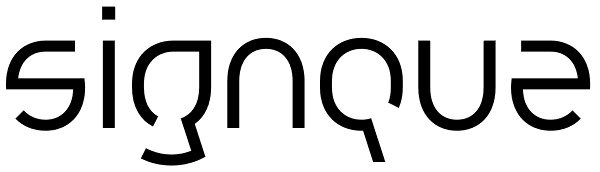
signque
signque is an elegant and modern sans serif typeface. The contrast between curves and straights but also between open and closed contours gives the typeface a very fashionable and distinctive appearance. signque is designed as a headline typeface...